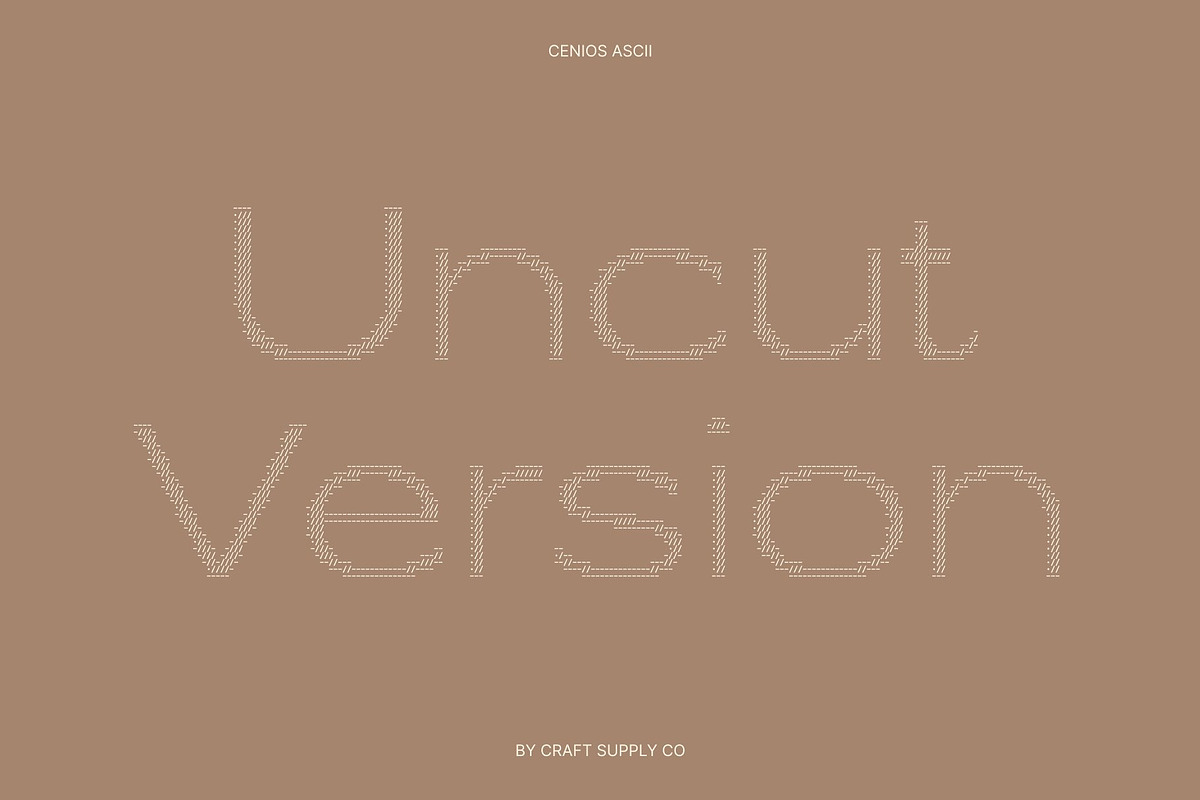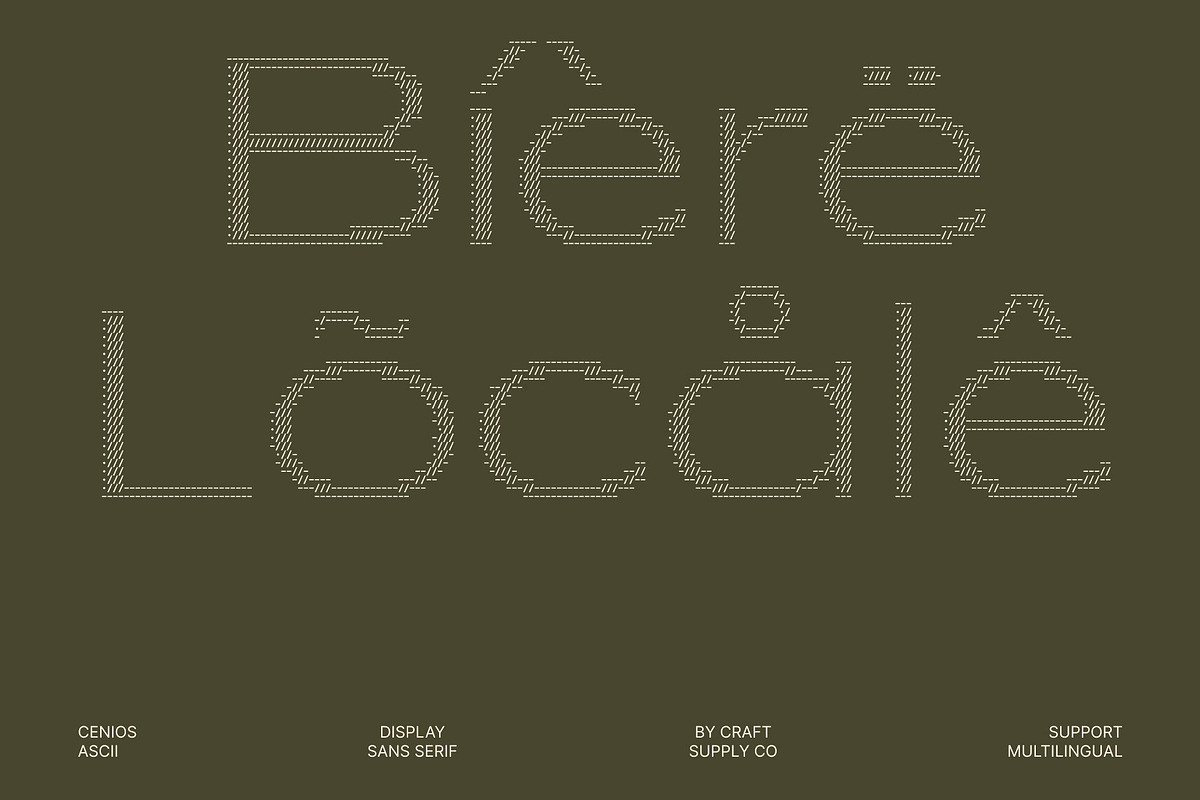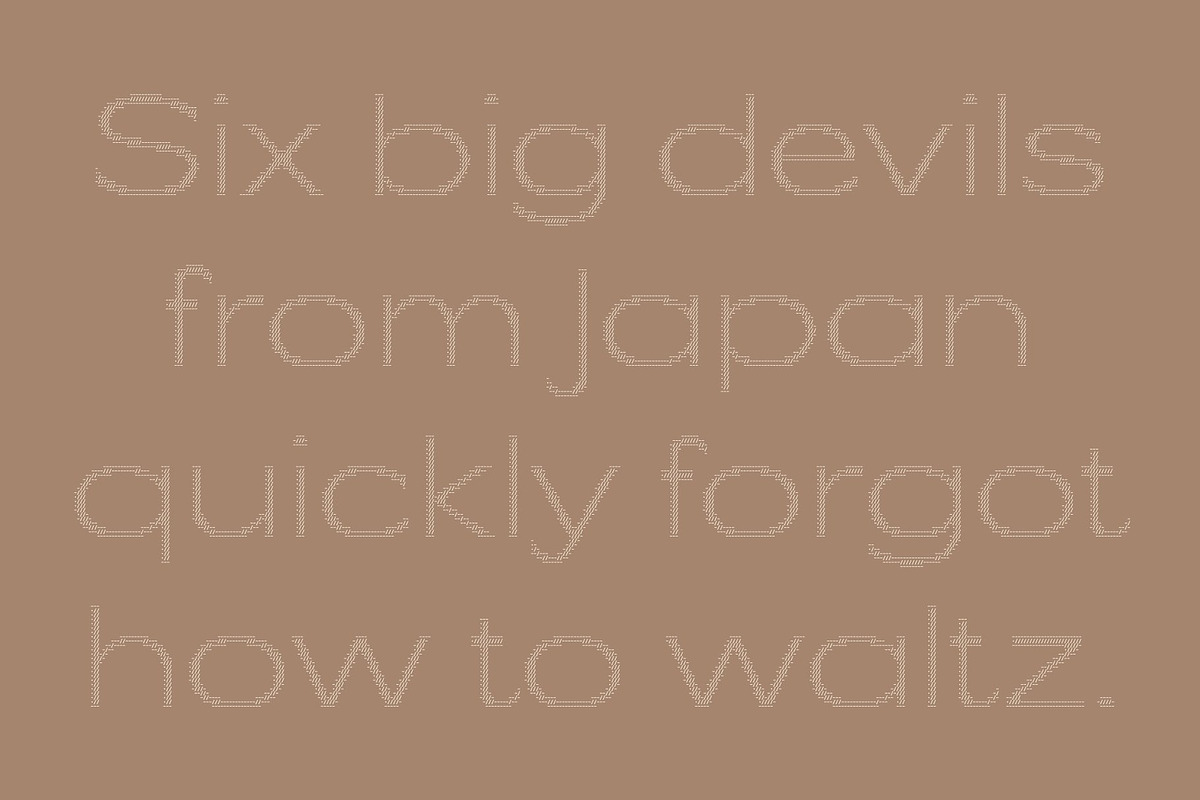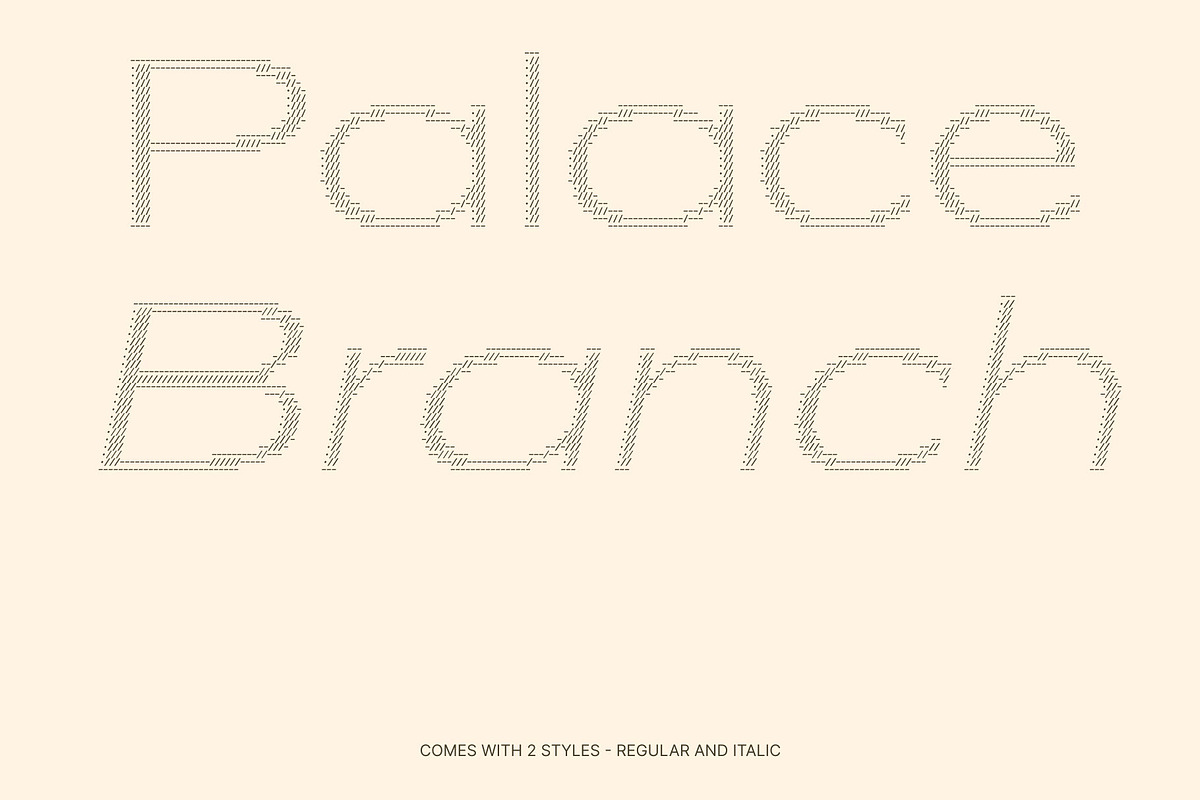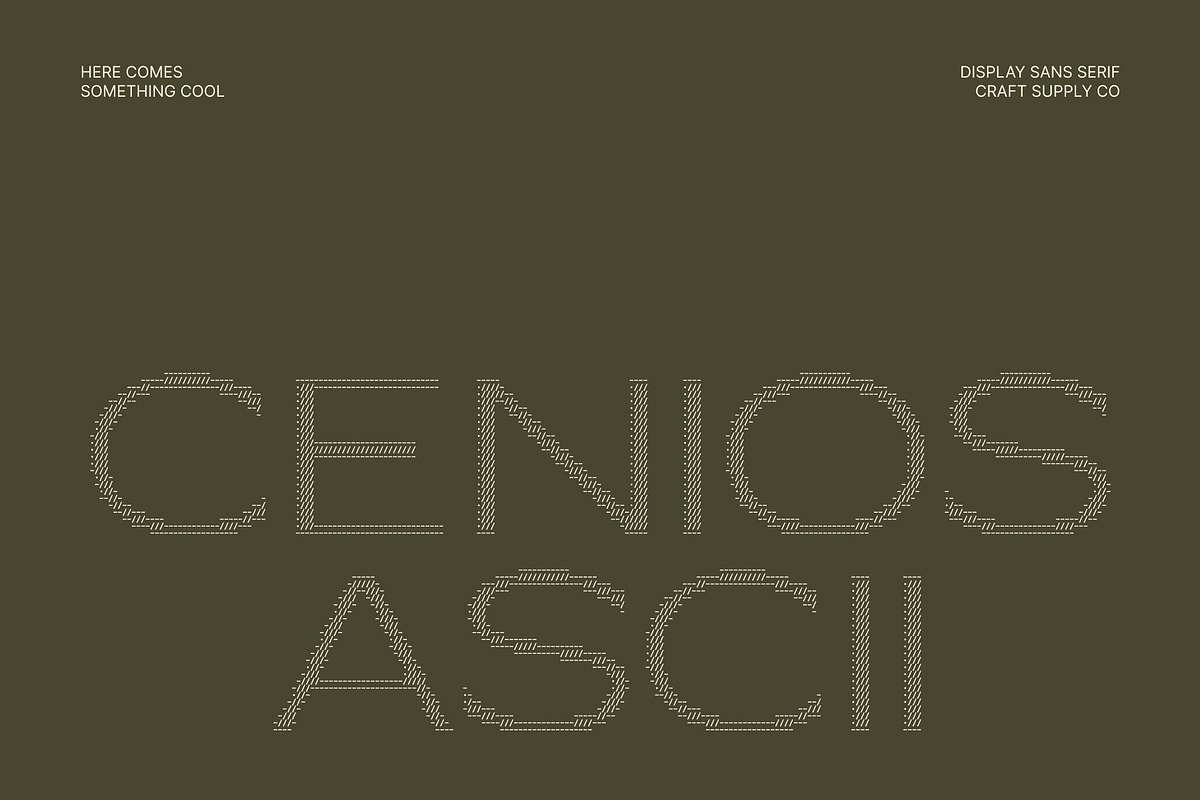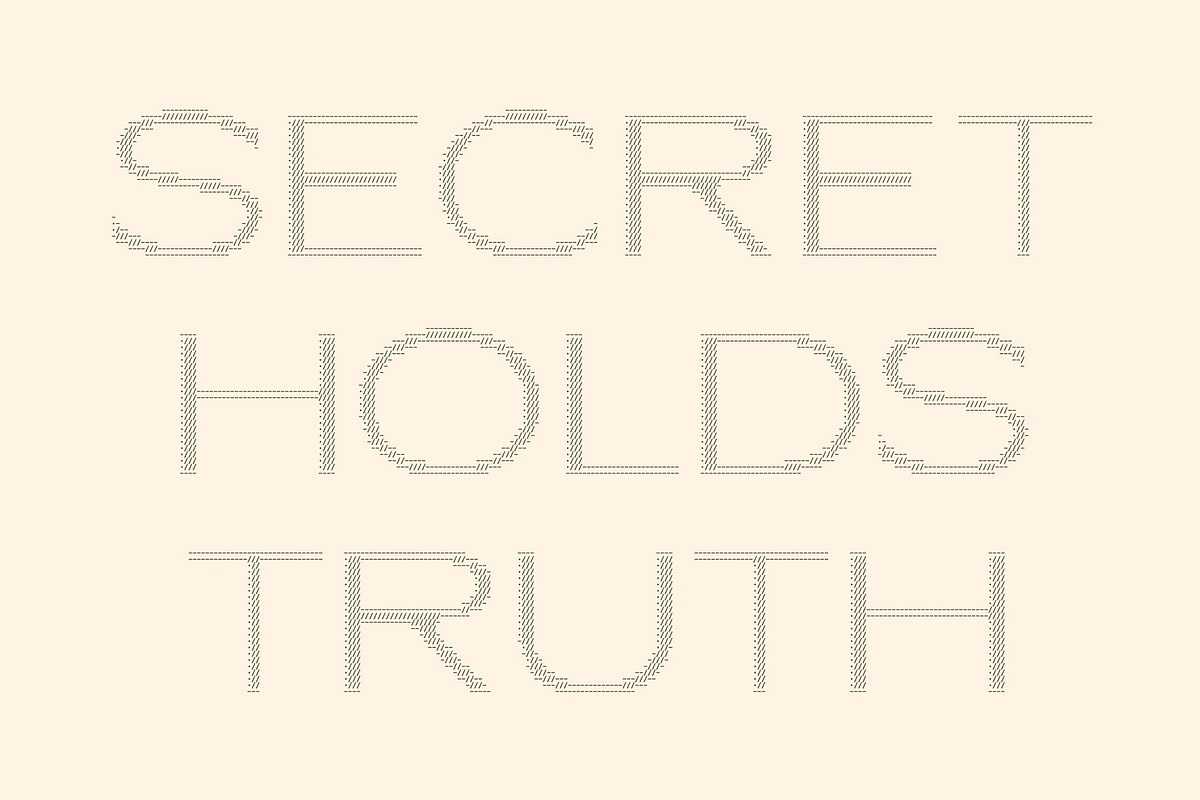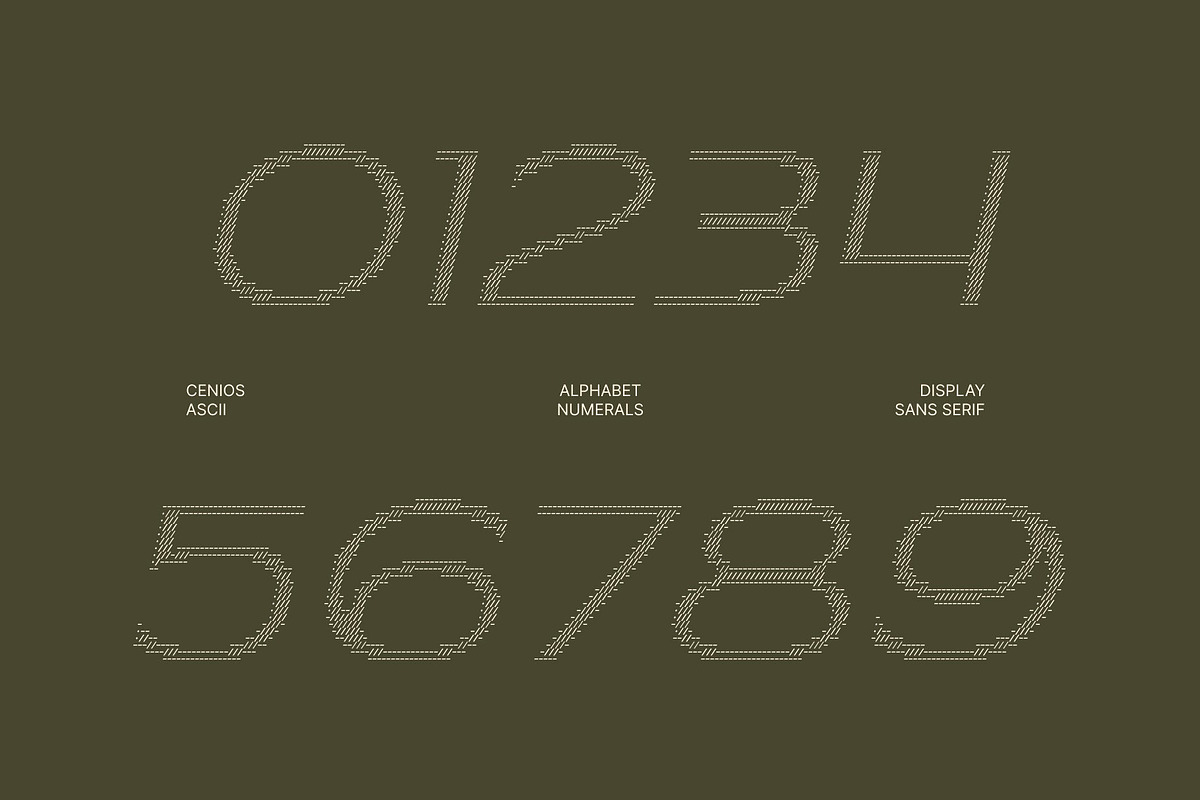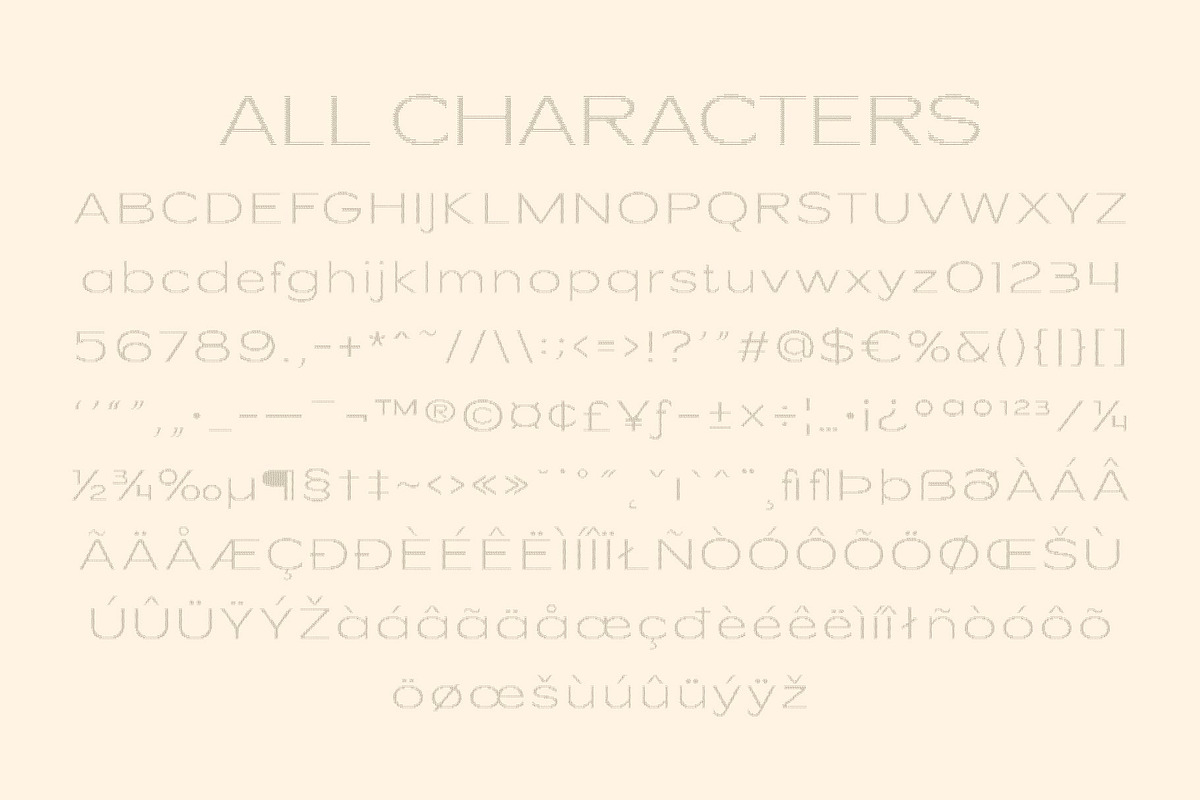
Cenios Ascii
Cenios Ascii – Expanded Sans Serif Font: Where Modern Clarity Meets ASCII Art Expression
Wide Open Forms with Bold Presence This is a modern sans serif font distinguished by its expanded shape and wide, open letterforms. Its spacious proportions create a strong visual presence while maintaining exceptional clarity and readability. The increased spacing between characters enhances balance and legibility, making the font ideal for bold display applications where impact and precision are equally important.
ASCII Style with Digital Artistic Appeal This font transforms traditional typography into decorative forms constructed from arranged characters and symbols. This unique treatment gives the font a visually engaging digital personality, creating the impression that text functions as both communication and graphic art. The result is a creative and tech-inspired aesthetic that stands out across modern visual media.
Contemporary Simplicity with Innovative Character This font delivers a typographic identity that feels modern, intelligent, and visually distinctive. Its wide forms combined with symbolic detailing evoke digital culture, coding environments, terminal graphics, and experimental design while preserving a clean and professional appearance.
Perfect for Bold Displays and Creative Communication Perfect for headlines, posters, branding, advertising, digital campaigns, website banners, editorial titles, signage, and promotional materials. Its distinctive ASCII forms make it ideal for logos, visual identities, event graphics, and creative projects that require strong visibility, clarity, and a contemporary digital edge.
Cenios Ascii Regular
Cenios Ascii Italic